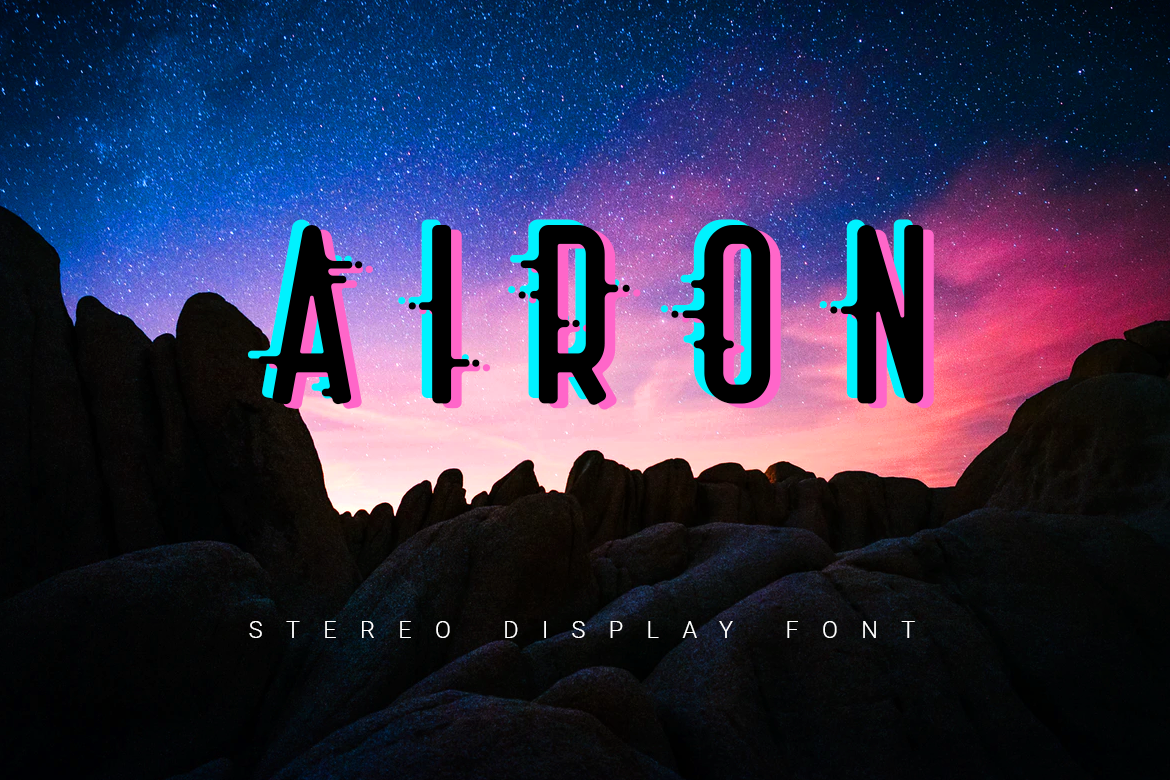
Airon| stereo effect font
Airon is a brutal sans serif font designed with rounded letters. The font is made with a stereo effect, but it has alternates with a gradient or light fill without a stereo effect. The font will look especially good on a dark or muted background. The font has only capital letters, it works great to make short titles.
- uppercase letters with alternates
- numbers